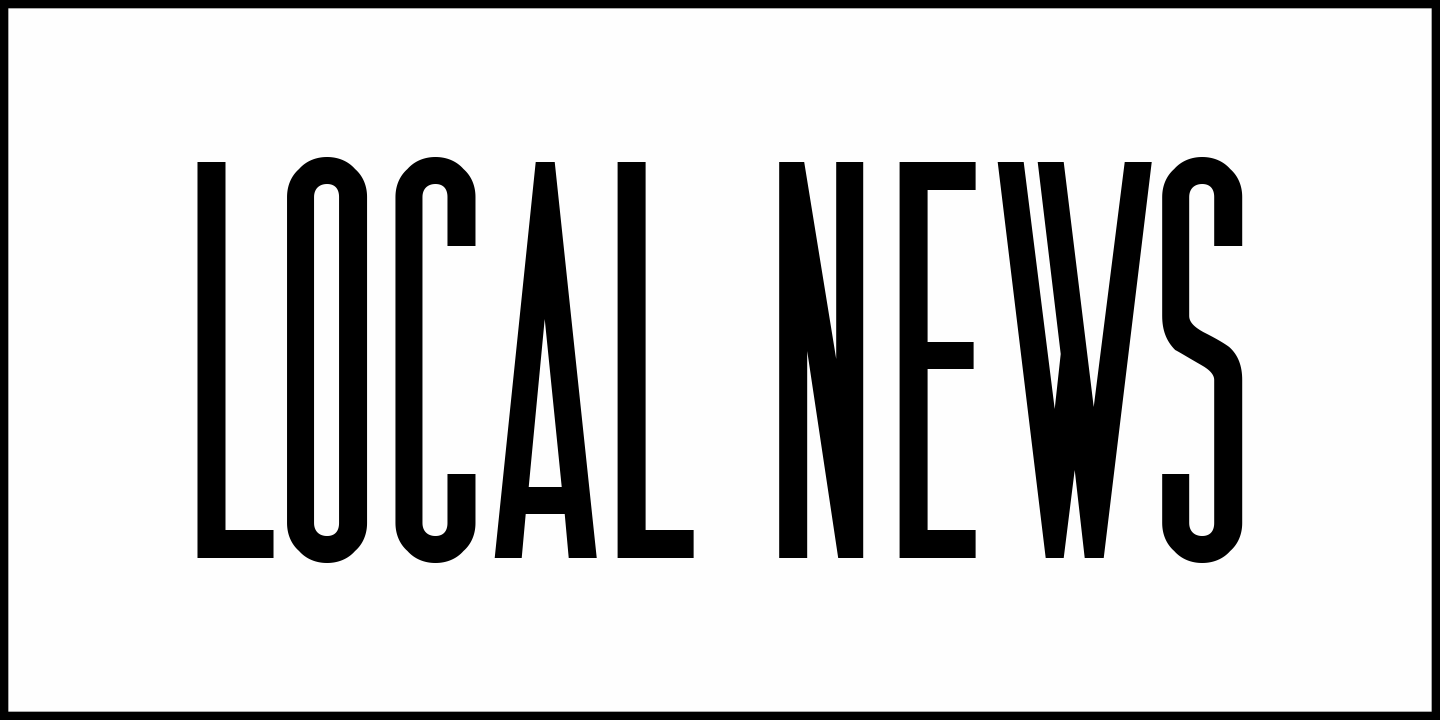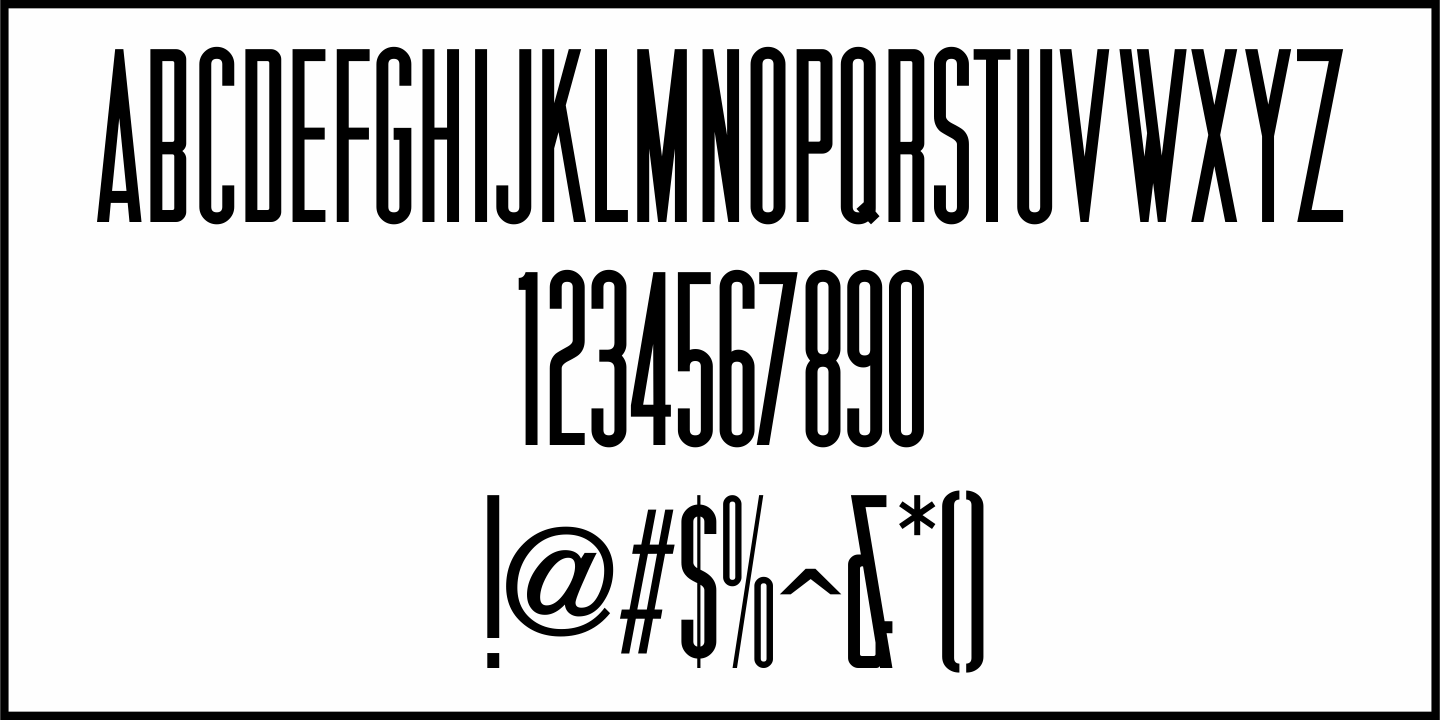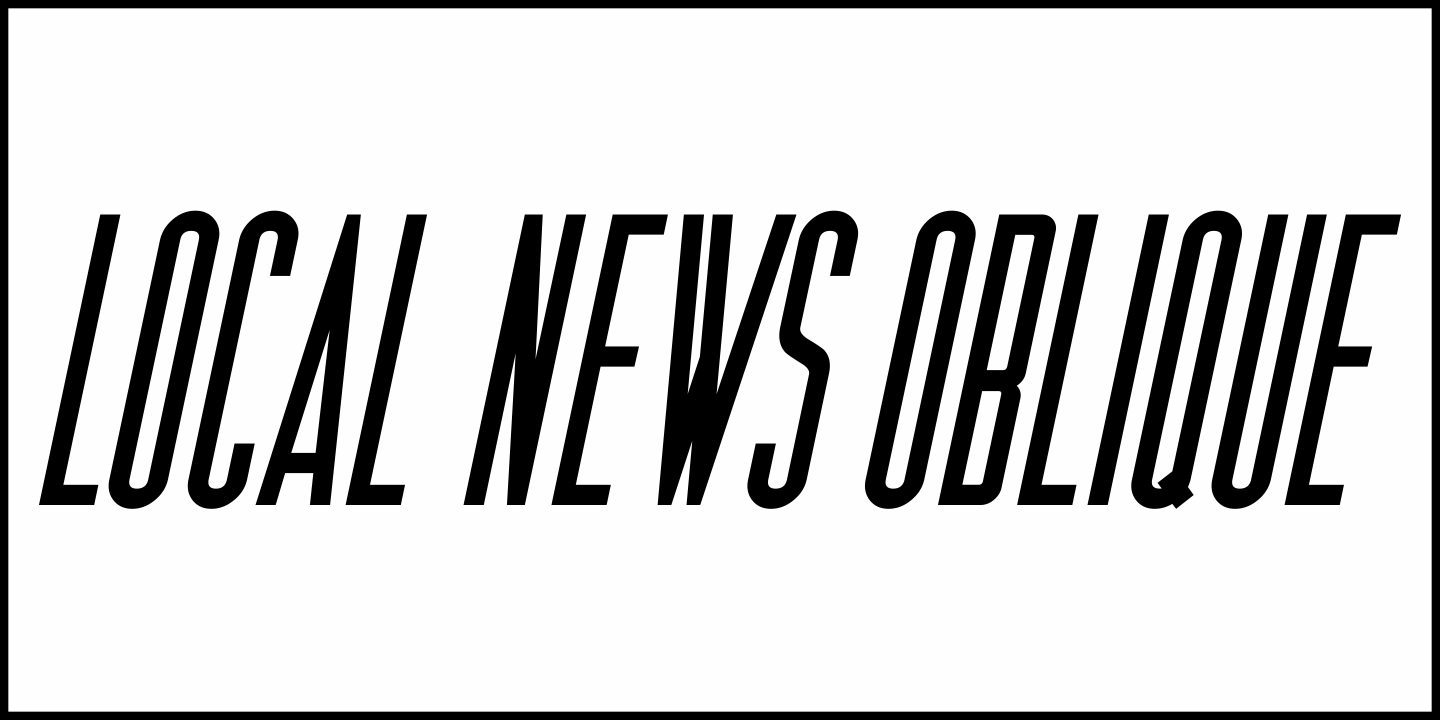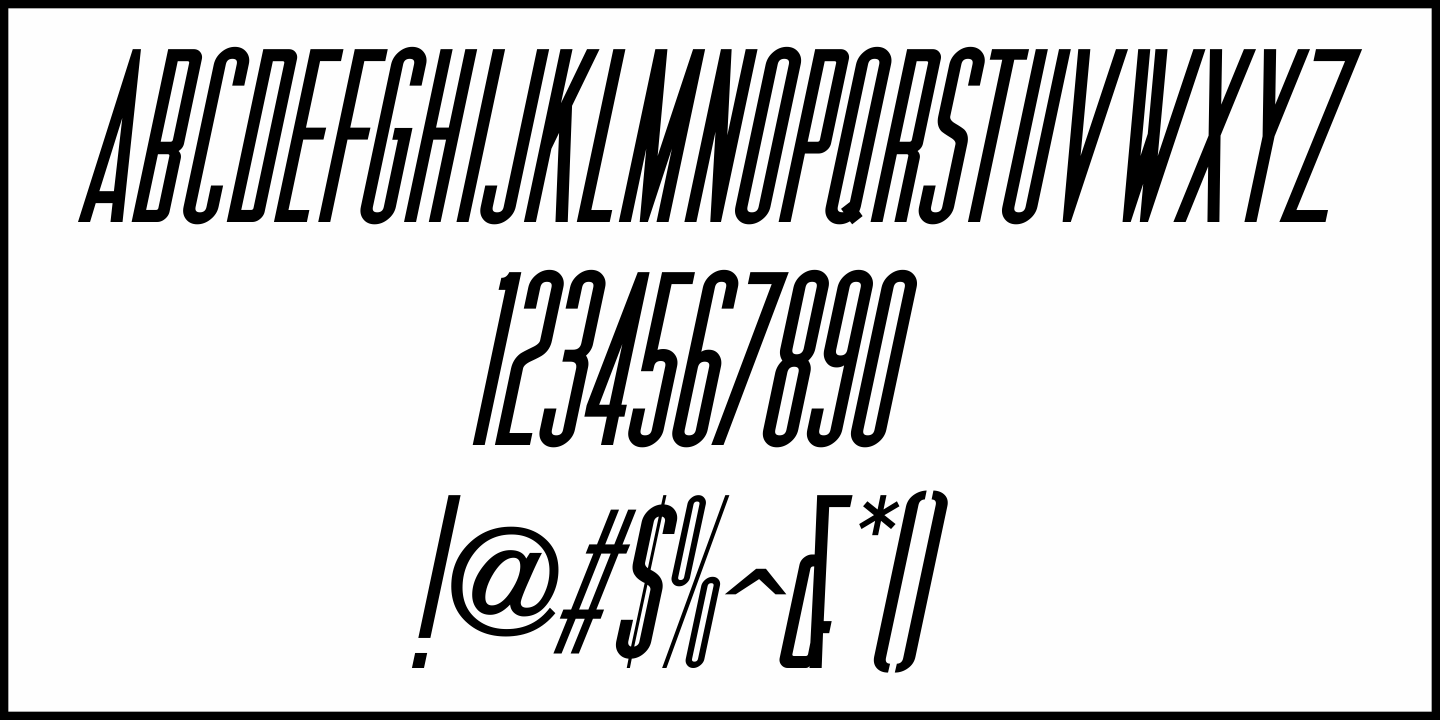
Local News
The hand lettered title for the 1954 film “Power of the Press” was done in a condensed sans serif type style that is now available digitally in both regular and oblique versions as Local News JNL.
Local News JNL Regular by Jeff Levine Fonts